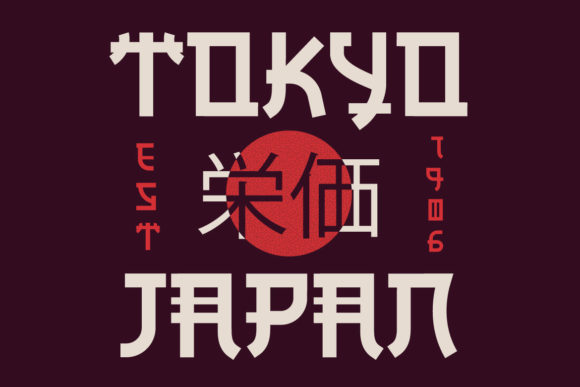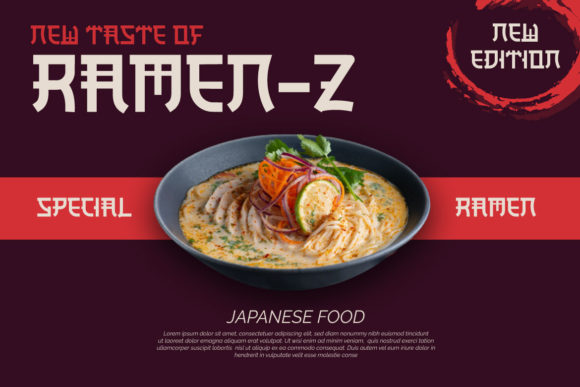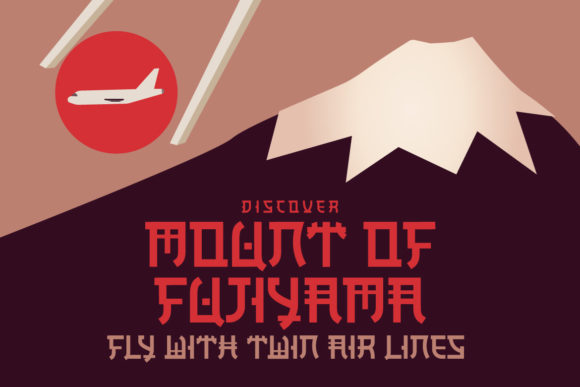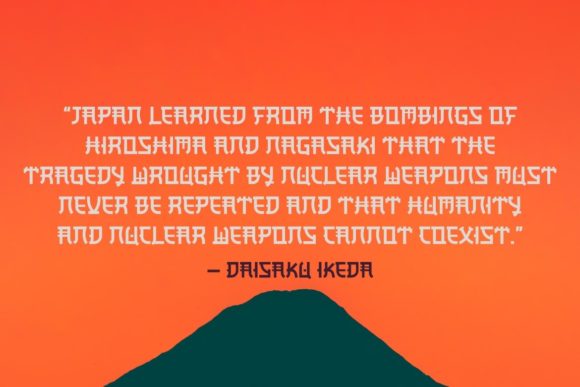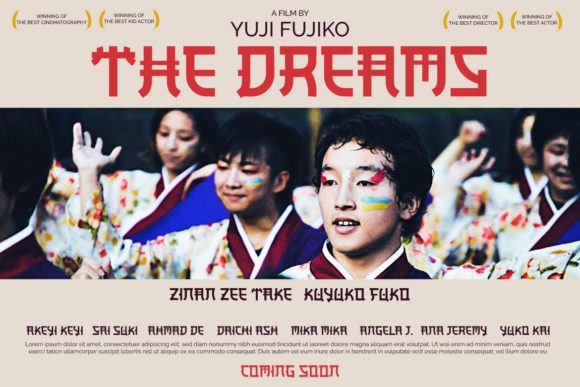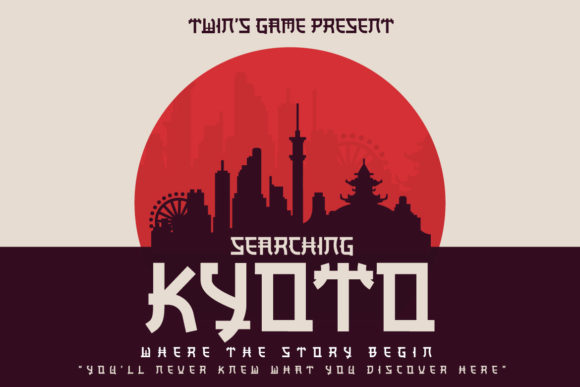
Introduction to Hamiba Font
Have you ever found yourself scrolling through design inspiration boards, feeling stuck and unsure of how to bring your creative project to life? That’s exactly where I was when I stumbled upon the Hamiba Font – a stunning, Japanese-inspired display font that instantly sparked my imagination. Its unique blend of traditional and modern elements was the perfect catalyst for my next design endeavor.
As a designer, you’re always on the lookout for that special something that elevates your work to the next level. The Hamiba Font is that game-changer – a high-quality, versatile design resource that’s perfect for a wide range of creative projects, from eye-catching food menus to bold posters and flyers. With its transparent background and free download availability, it’s an invaluable asset for any designer looking to add a touch of sophistication and flair to their work.
Key Features of Hamiba Font
- High-quality, free download font ideal for creative projects requiring a unique touch.
- Transparent background option for seamless integration with various design elements.
- Includes a range of weights and styles, allowing designers to achieve the perfect look for their project.
- Designed to be highly legible at various resolutions, making it suitable for use in digital and print media.
- Perfect design resource for creative professionals and hobbyists alike, offering a fresh and modern aesthetic.
Honest Review: Hamiba Font
I recently stumbled upon the Hamiba Font and I must say, it’s a great addition to any designer’s toolkit. This free download is perfect for creative projects that require a unique and eye-catching font.
What works well: ✨ The font is incredibly versatile and can be used for a wide range of designs, from logos to brochures. The transparent background feature allows for seamless integration with other design elements. The high quality of the font is also noteworthy, making it perfect for professional designs.
Here are some of the key features that I found particularly useful:
- High quality and clear typography
- Perfect for creative projects and designs
However, there are some limitations: ⚠️ The font may not be suitable for very small text sizes, as it can become difficult to read. Additionally, some users may find the font’s unique style too bold or overpowering.
Overall, I’m impressed with the Hamiba Font and I would definitely recommend it to designers looking for a high-quality, versatile font. It’s a great design resource that can elevate any creative project.
The Hamiba Font is a versatile design resource that can be used in a variety of creative projects, including logos, branding materials, and marketing materials. Its transparent background and high-quality design make it an ideal choice for designers looking to add a touch of sophistication to their work.